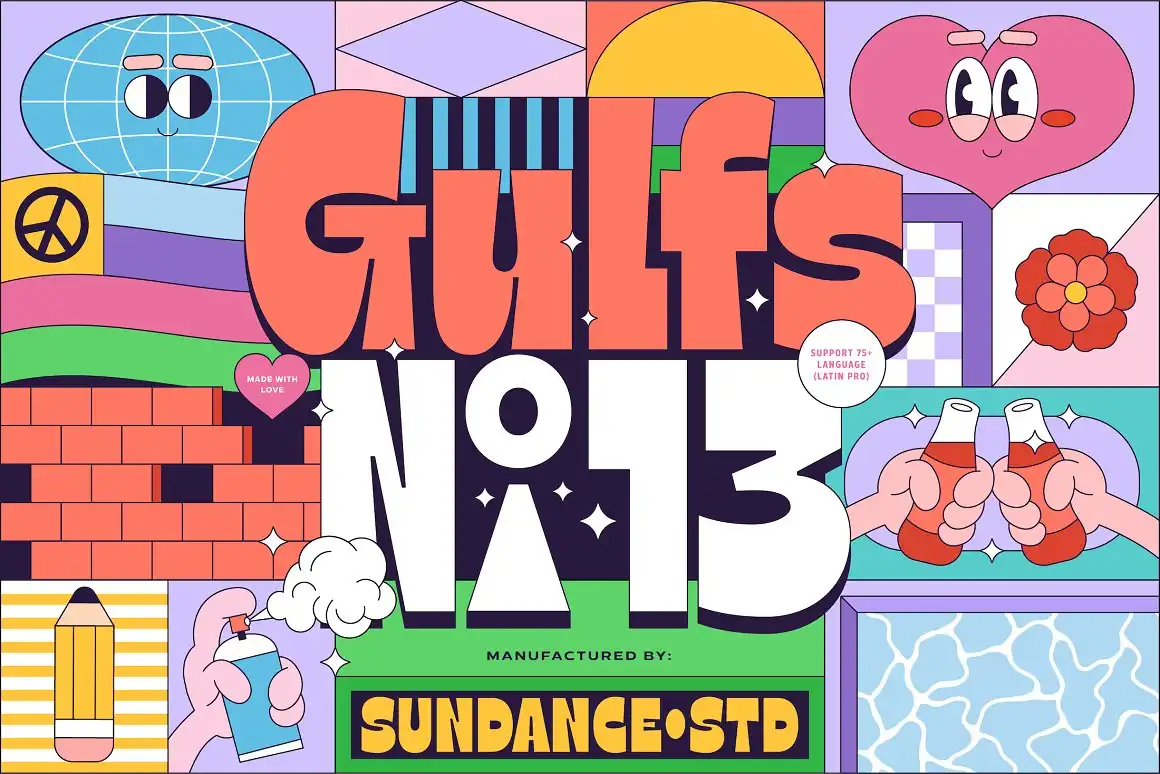
Welcome back to another exciting installment of Selected Assets! This week we’re diving into Part 116, a massive curation of 20 premium digital tools designed to supercharge your creative workflow. Whether you’re a digital painter, a logo designer, or a Procreate enthusiast, this collection has something special for you.
From the playful, retro charm of the 50% Gulfs Display Font to a wide array of Procreate brush sets—including gouache, watercolor, ink splatters, foliage, grain stamps, and more—this selection is built to help you explore new styles and techniques. Let’s jump in and see what’s waiting for you!
Why This Collection Stands Out
For typography lovers, the 50% Gulfs Display Font brings a vibrant 90s cartoon vibe perfect for branding, logos, and packaging. Combined with the texture and pattern brushes, you’ll have everything you need to add depth, personality, and a professional finish to your projects.
Featured Products in Selected Assets Part 116
1. 50% Gulfs Display
Looking for a vibrant and playful font? The Gulfs Display Font is here to sprinkle joy into your designs! 🎉 This digital download offers instant access, allowing you to dive right into your creative projects without delay. With its charming 90’s cartoon inspiration, this font is perfect for adding a touch of fun to any design.